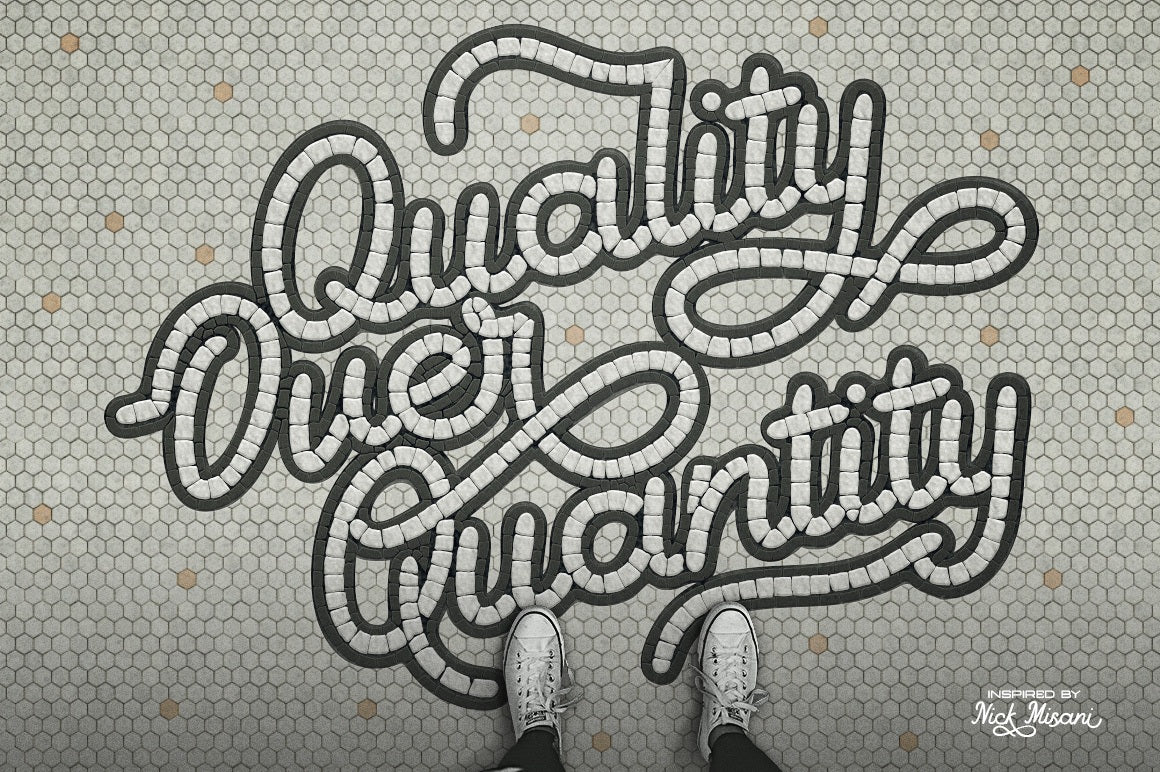
Free Goodline Monoline Font
Take a look at this gorgeous free goodline – monoline font. This free font file was found from the amazing source called Pixelify. Amaze your fellow designers and create stunning designs with this cool font.